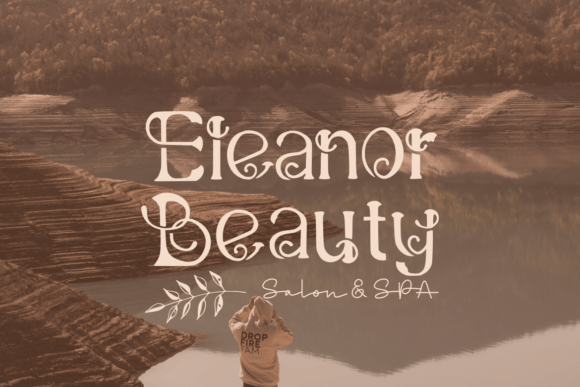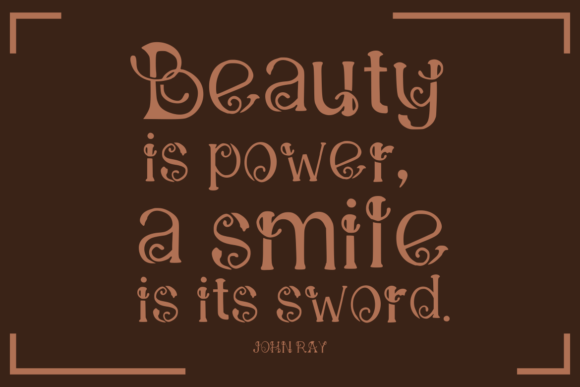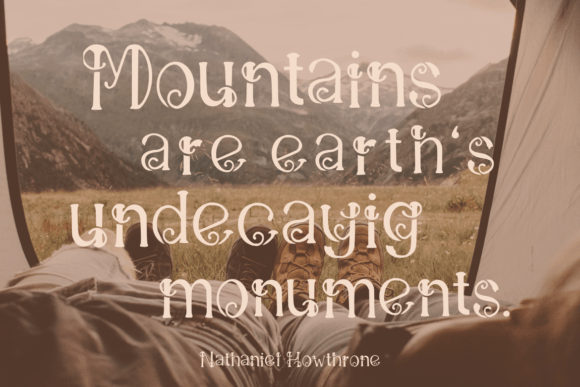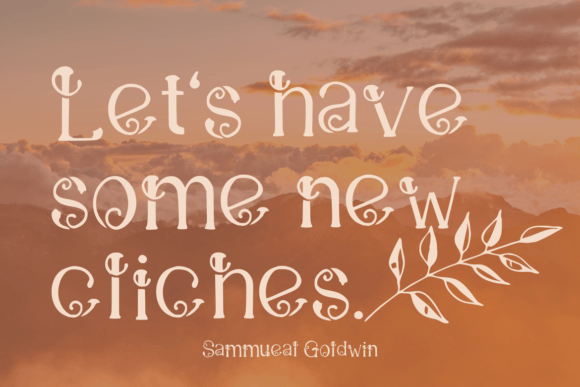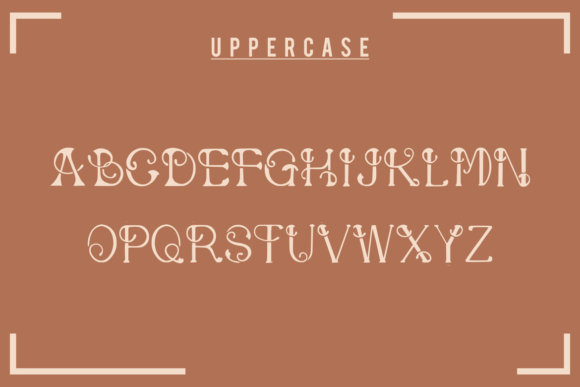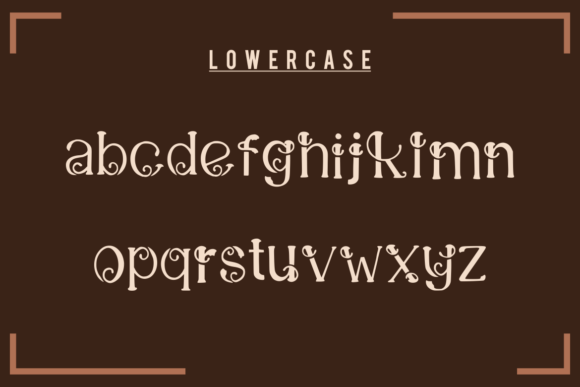
Introduction to Menggolo Font
Menggolo is a modern decorative serif font designed with an original touch This cool font is 100% handmade with a strong and sharp effect.
This font is perfect for titles, typography, posters, magazines, brochures, packaging, Websites, and much more .
Key Features of Menggolo Font